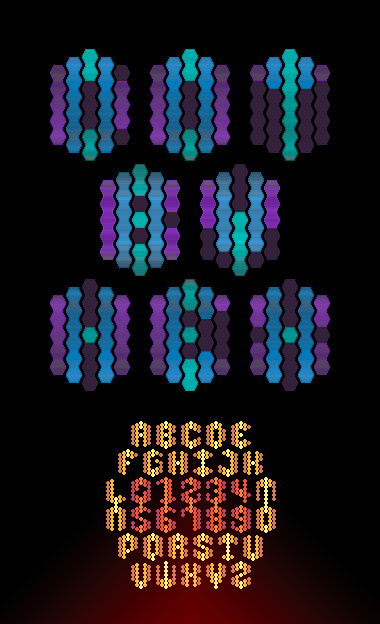
I'm glad to see a design based on a hexagonal pattern. You did a very good job cleverly using the filters, I guess. The demo pic is beautiful, as always. The T looks a bit weak, but you had to make a compromise to keep the letters monospace. This way the individual letters themselves fit in a hexagon, and the multiline text results in a larger hexagonal pattern. 10/10
Thanks Frodo. I forgot to enable Share-Alike (remedied). You can see for yourself that there are no filter—just regular bricks. I'm glad you noticed why I had to make it monospaced. Your idea was spot-on about larger hex blocks so I updated the sample to reflect it. Thanks again.
Hextremely beautiful sample, illustrating a clever bit of 'structing.
Hail to the King...er, Queen, baby! Regal, all the way through.
And this progression from V to U to Y is just delightful. I’m loving the subtractive strokes on Q and 0.
As always, super inspiring achievement, Ata. Thanks! With this you (and, by extension, afrojet) have sparked a really intriguing idea in my head. I wonder if I can pull it off...
In any event, there’s great new possibilities to explore with multi-layered (and/or outline and fill) fontstructions.
I'm traveling with just my iPhone right now, so I can't see the whole font. The sample is a great tease. I can't wait to see the whole thing. The hexegon pattern reminds me of those intricate military strategy board games my older cousins would play when I was a kid.
@ૐ: The Q and 0 left no other choice. I always find that limitations force creativity. Thanks for inspiring me so many times before; I'm glad I could return the favor this once. I have no doubt that if anyone can pull it off, it is you. Can't wait see it!
@aj: Lining up triangular, pentagonal, hexagonal, and octagonal shapes has always intrigued me. (Think Islamic tile patterns from Spain). They lead to such frustrations and fun. Here's another, larger, iPhone phriendly sample, John. :-)
It's got me hexed!
Wow, a font that's quite old and AWESOME. Time to download!
Man do I like retro fonts. 10/10